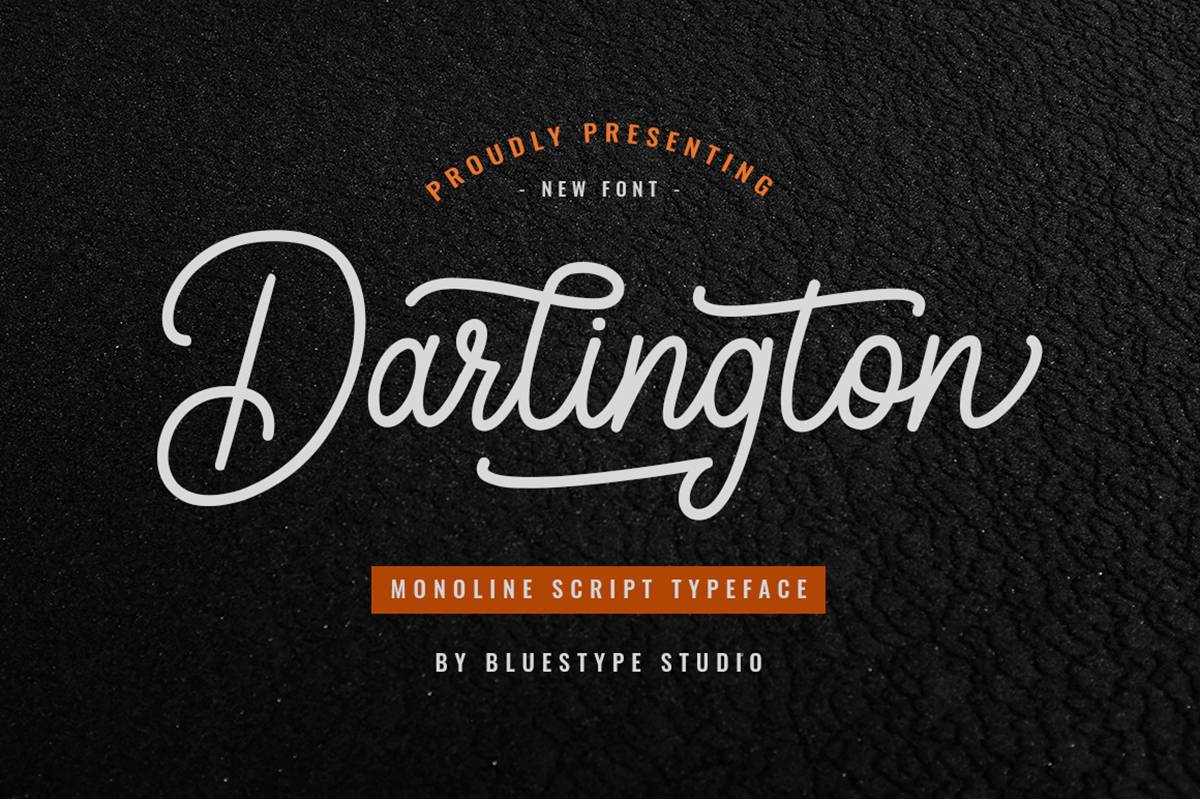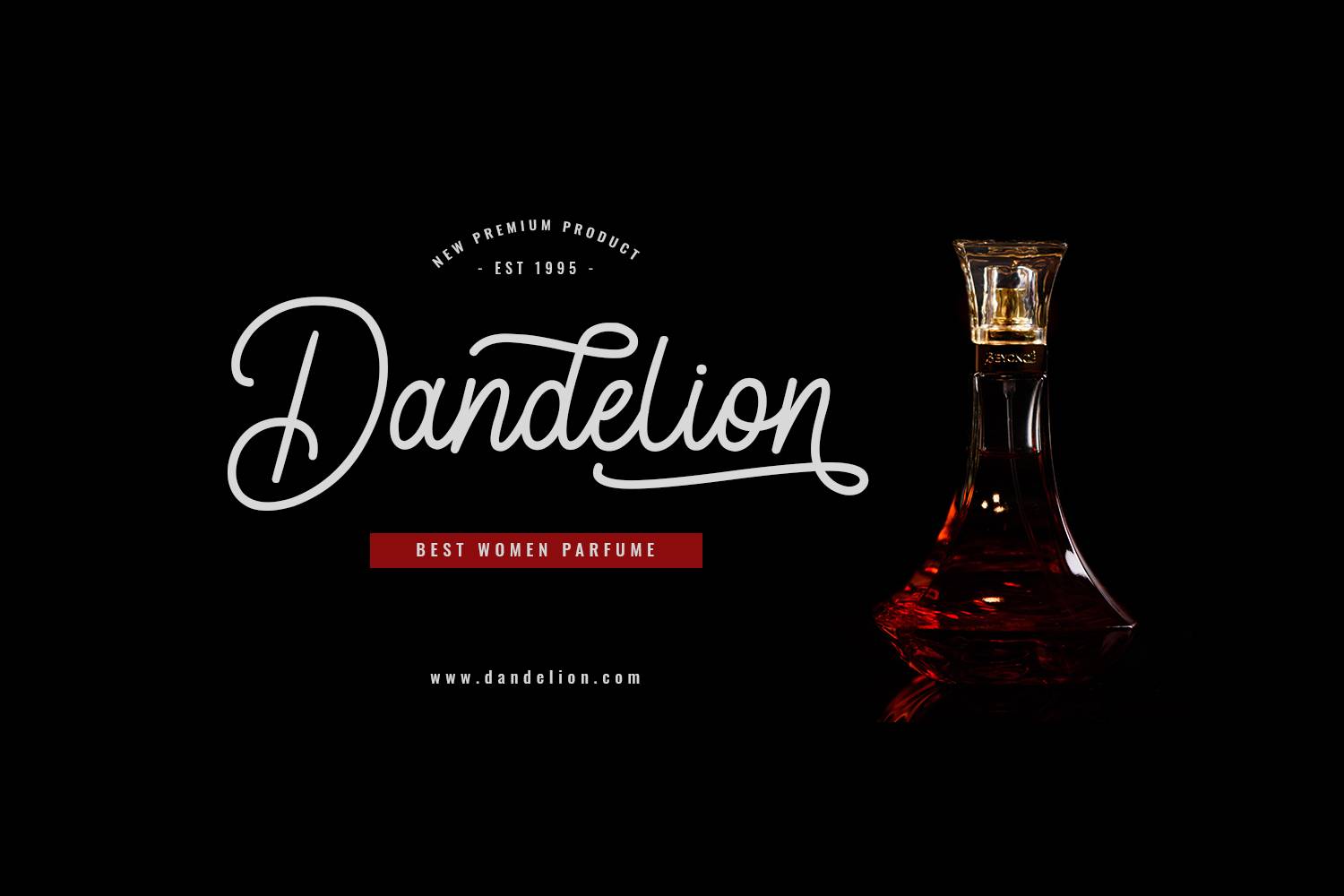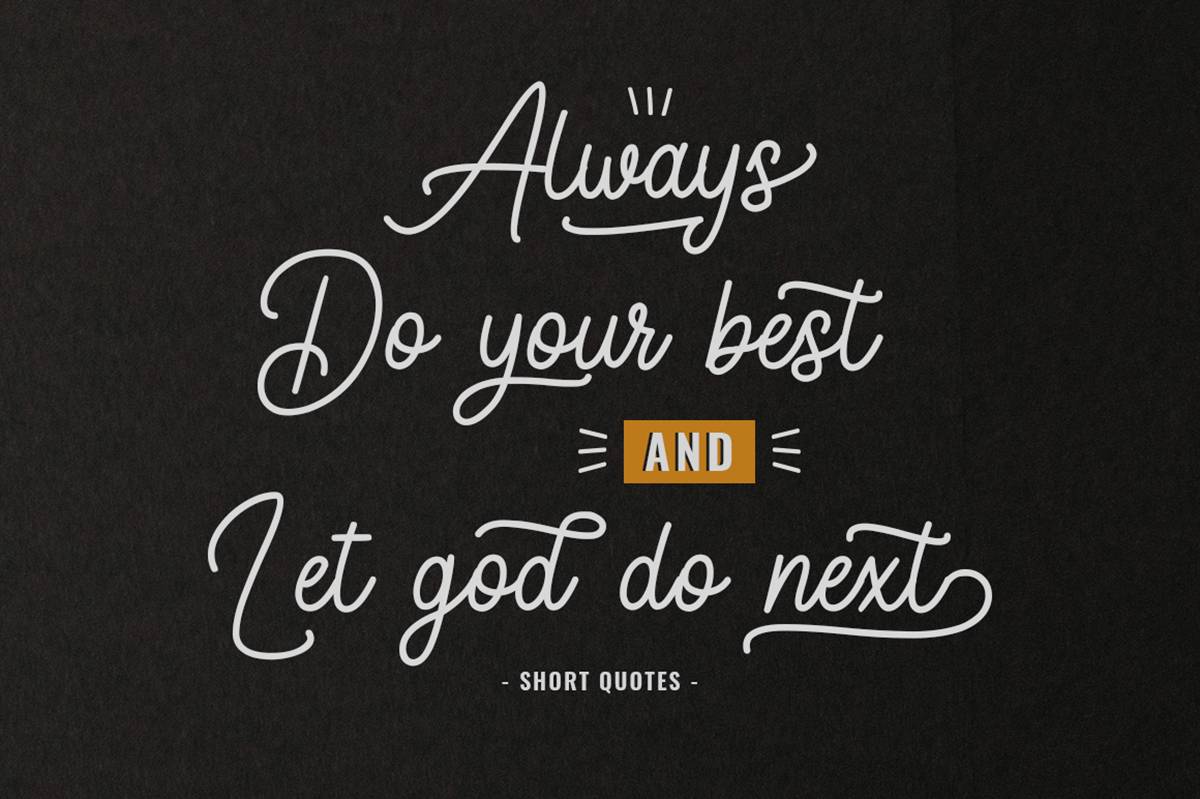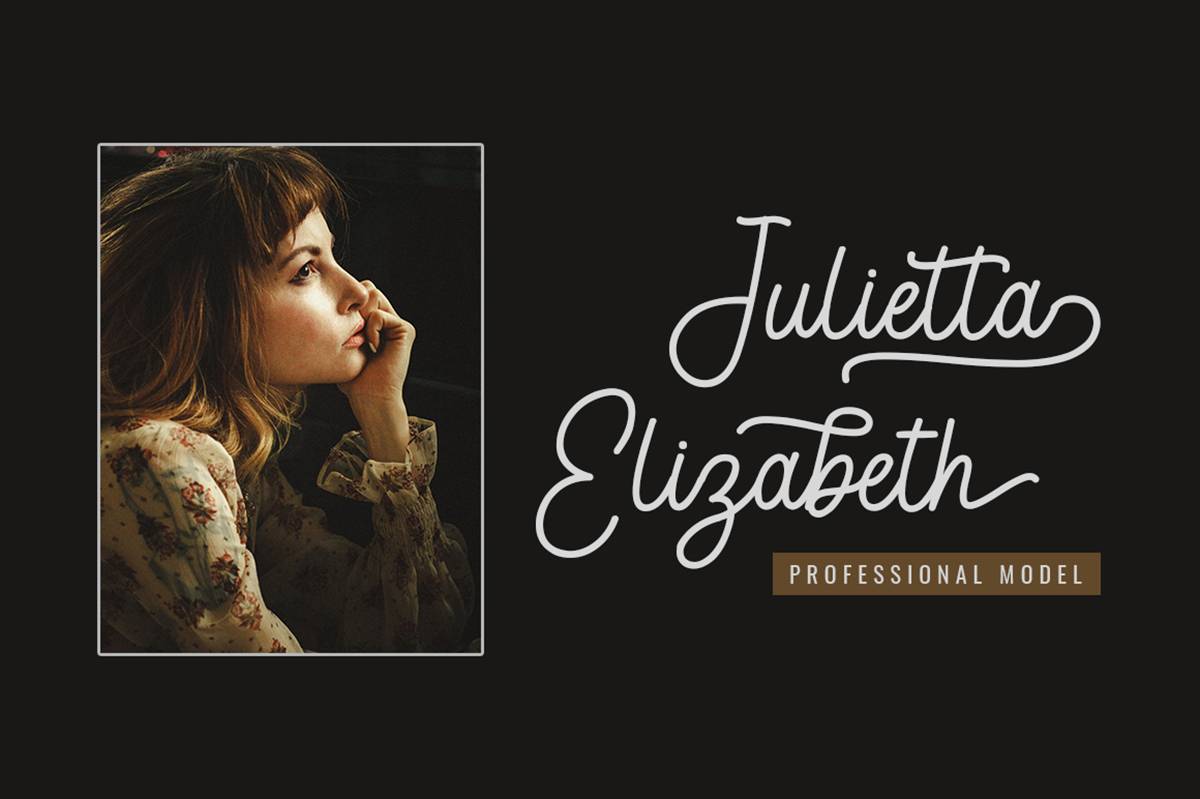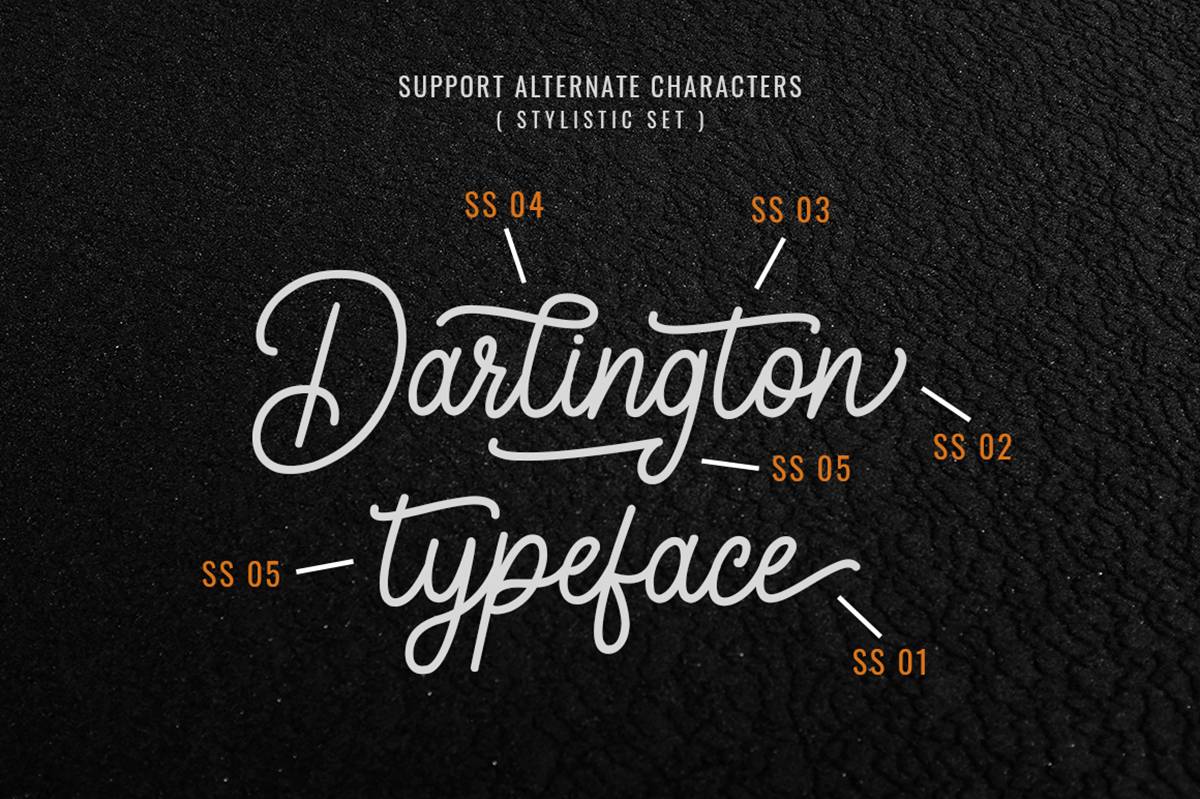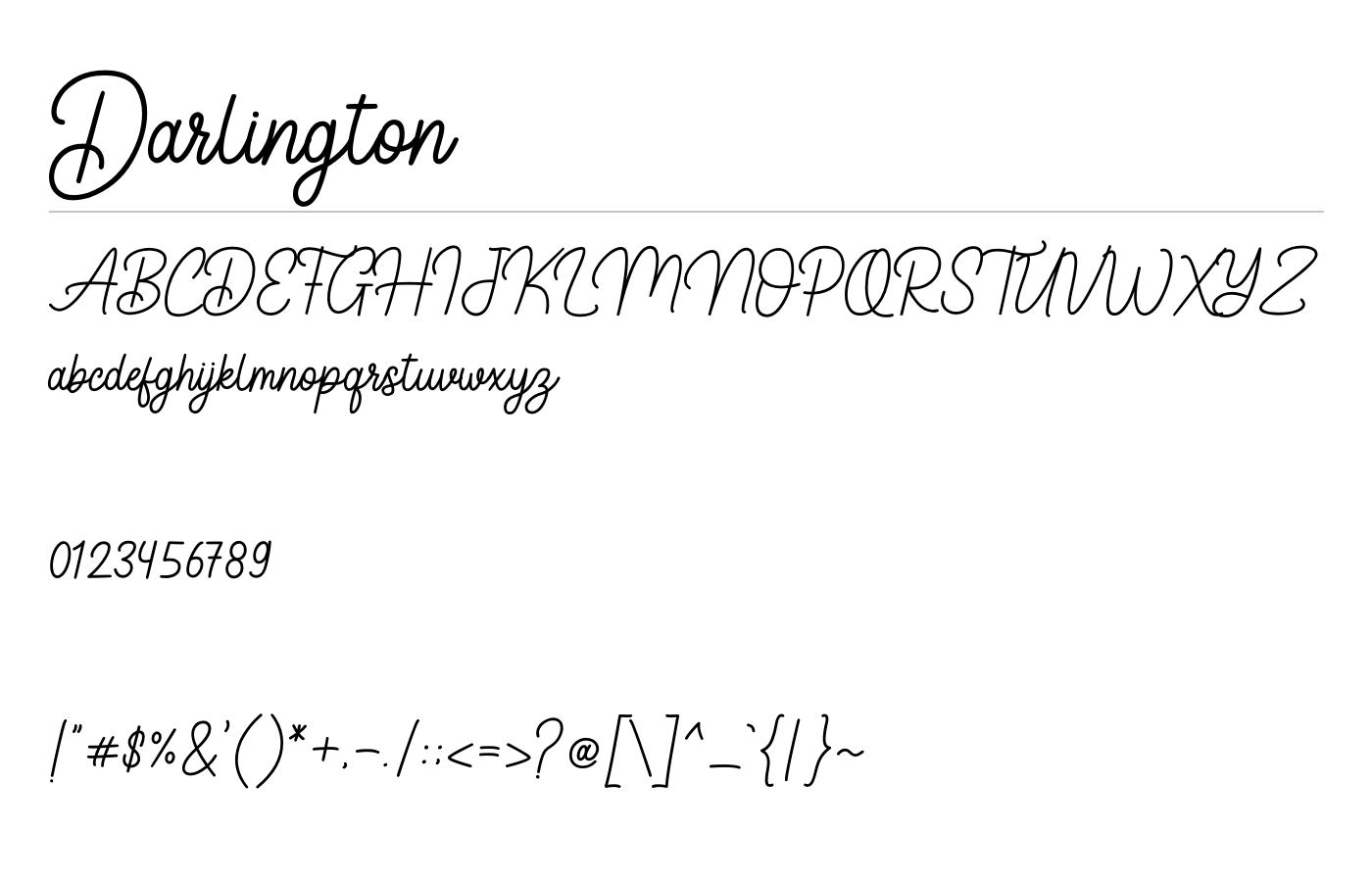
Darlington is a delicate, elegant script font characterized by its slender, flowing strokes and graceful letterforms that mimic natural handwriting. Its light weight and slightly condensed structure make it ideal for adding a personal, sophisticated touch to branding, invitations, and stylish editorial design. This font works beautifully where a refined, friendly, and approachable aesthetic is desired, especially in creative and fashion-oriented contexts.
Darlington Font
About Darlington Font
| Font family | Darlington Font |